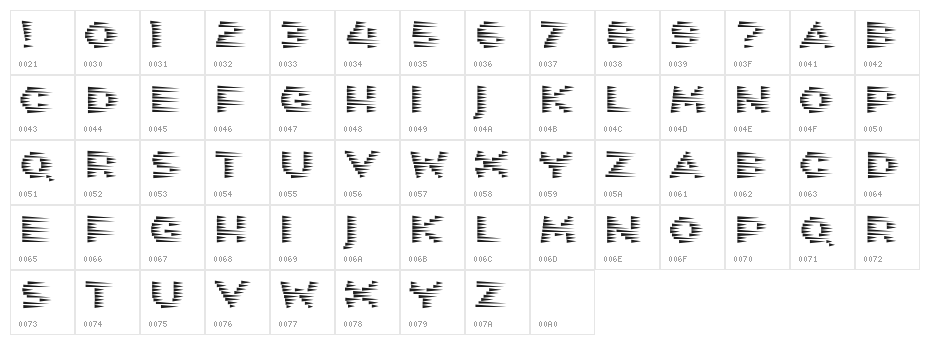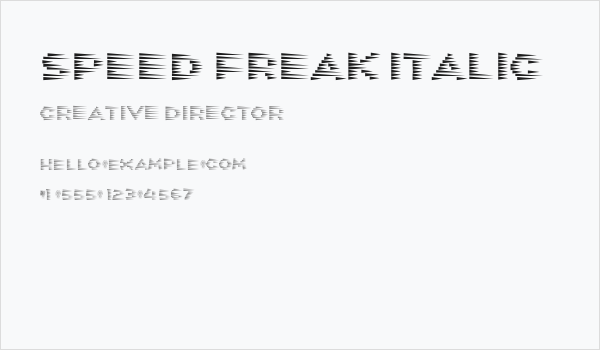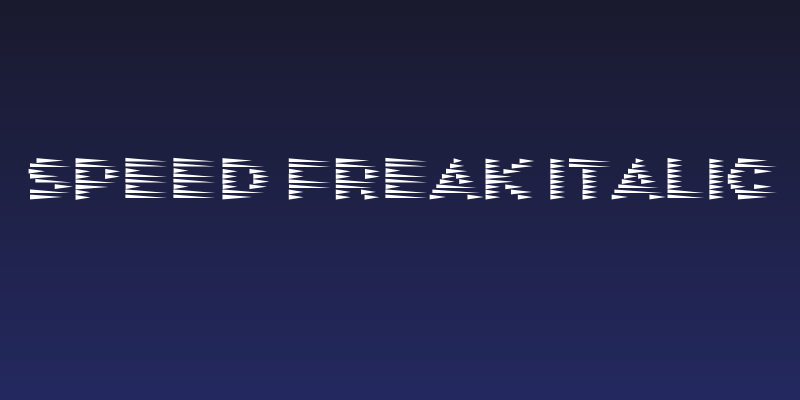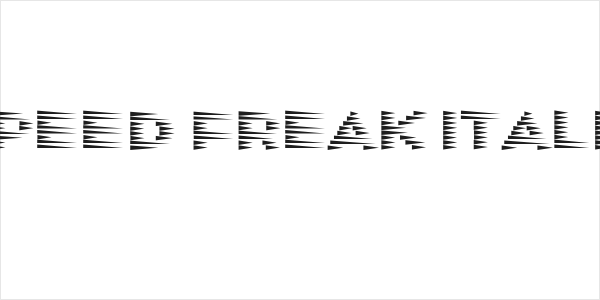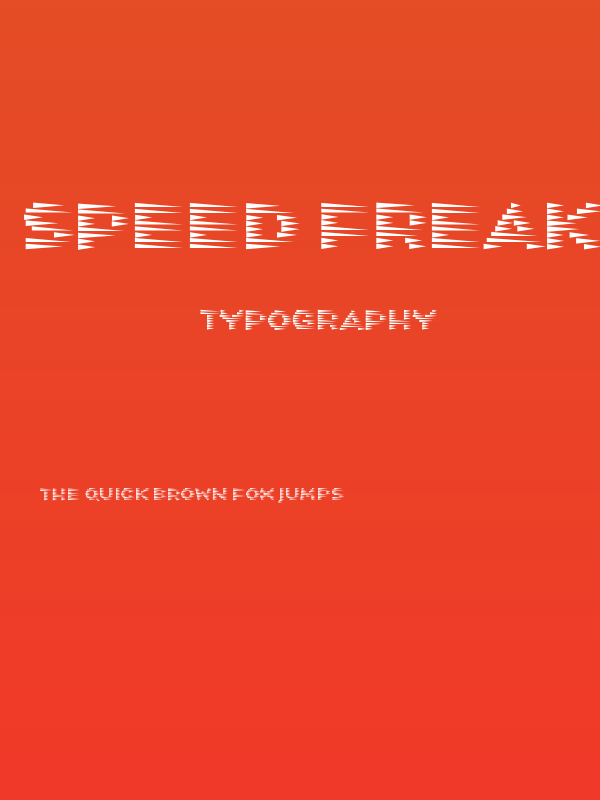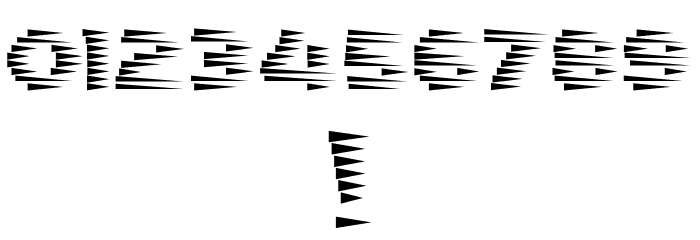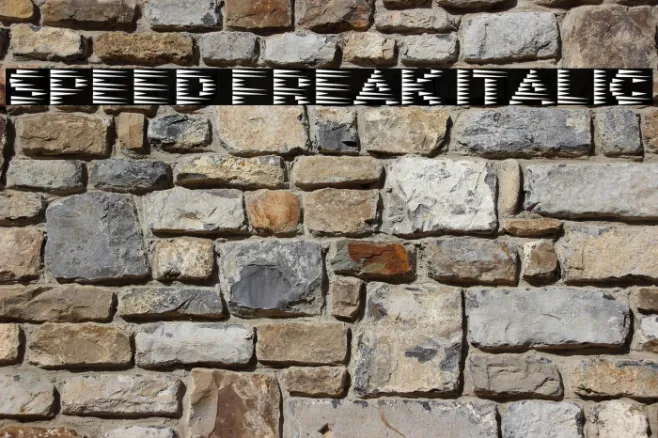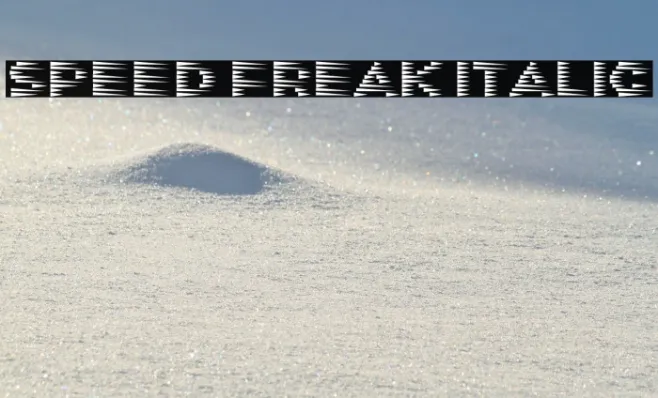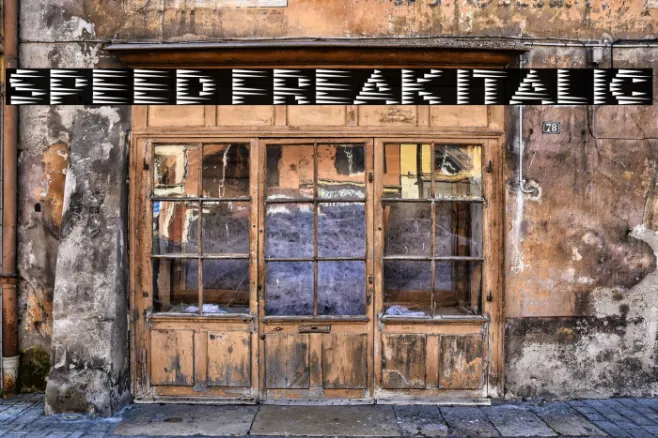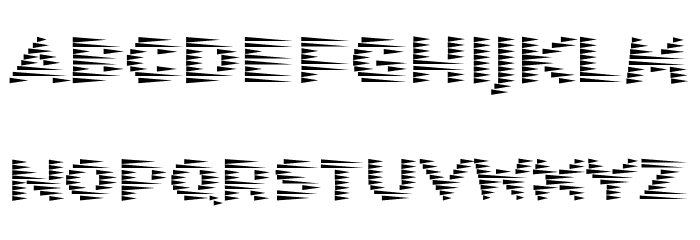
Speed Freak Italic Font
Speed Freak Italic Description
This font features a dynamic and edgy design, characterized by sharp, angular cuts and a sense of motion. The letters appear as if they are being pulled forward, creating a sense of speed and urgency. The italicized style enhances this effect, giving the impression of forward momentum. The font is bold and striking, with a modern, futuristic aesthetic that is perfect for projects requiring a sense of energy and movement. The unique design elements make it stand out, ensuring that any text set in this font will capture attention.
| Proposed Projects | Ideal for sports branding, automotive advertisements, dynamic posters, and video game titles. |